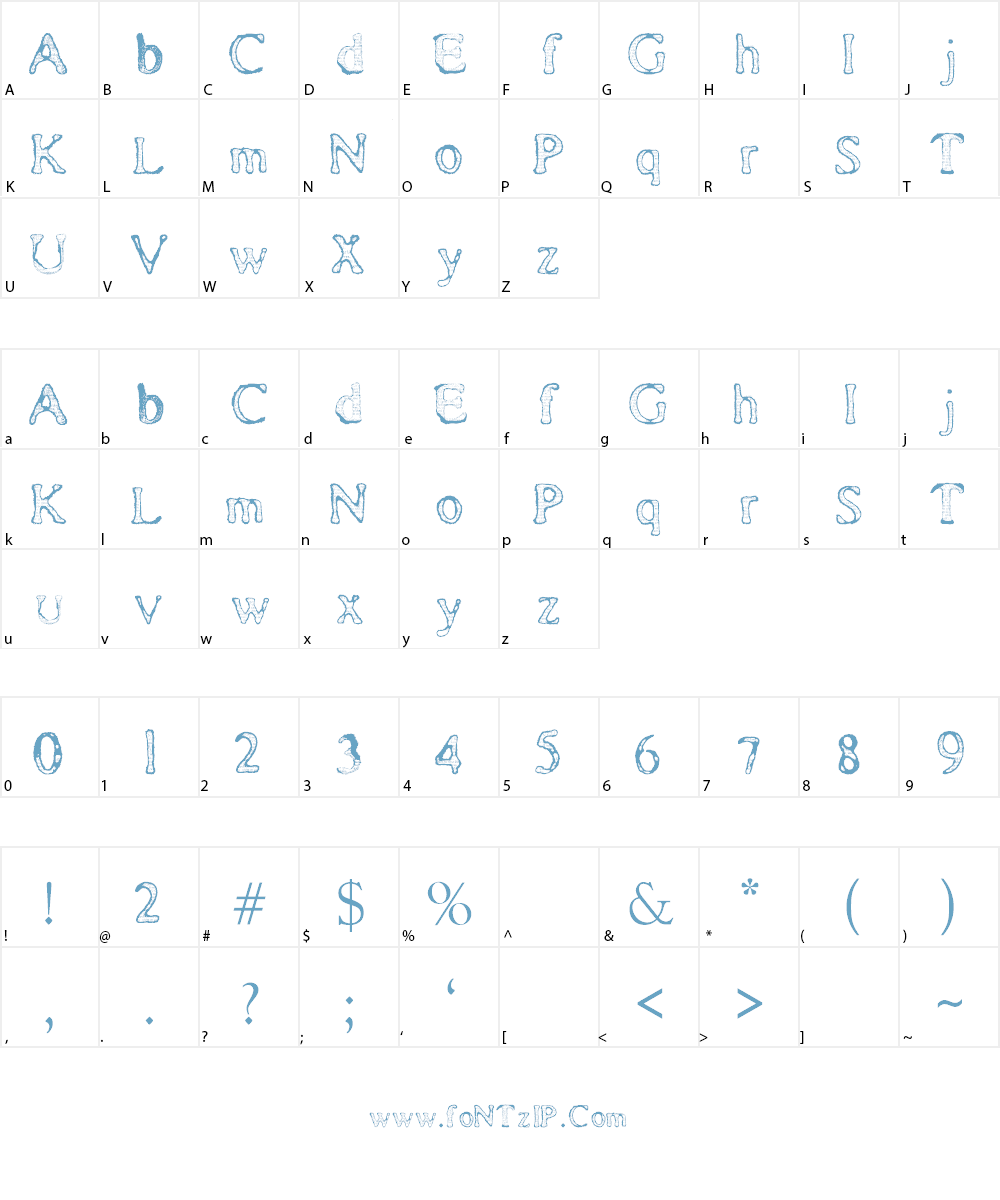
Burned newspaper letters. There are small letters and capital letters but not every letter got version as capital or small letter. Numbers are included. For CU license ask me at